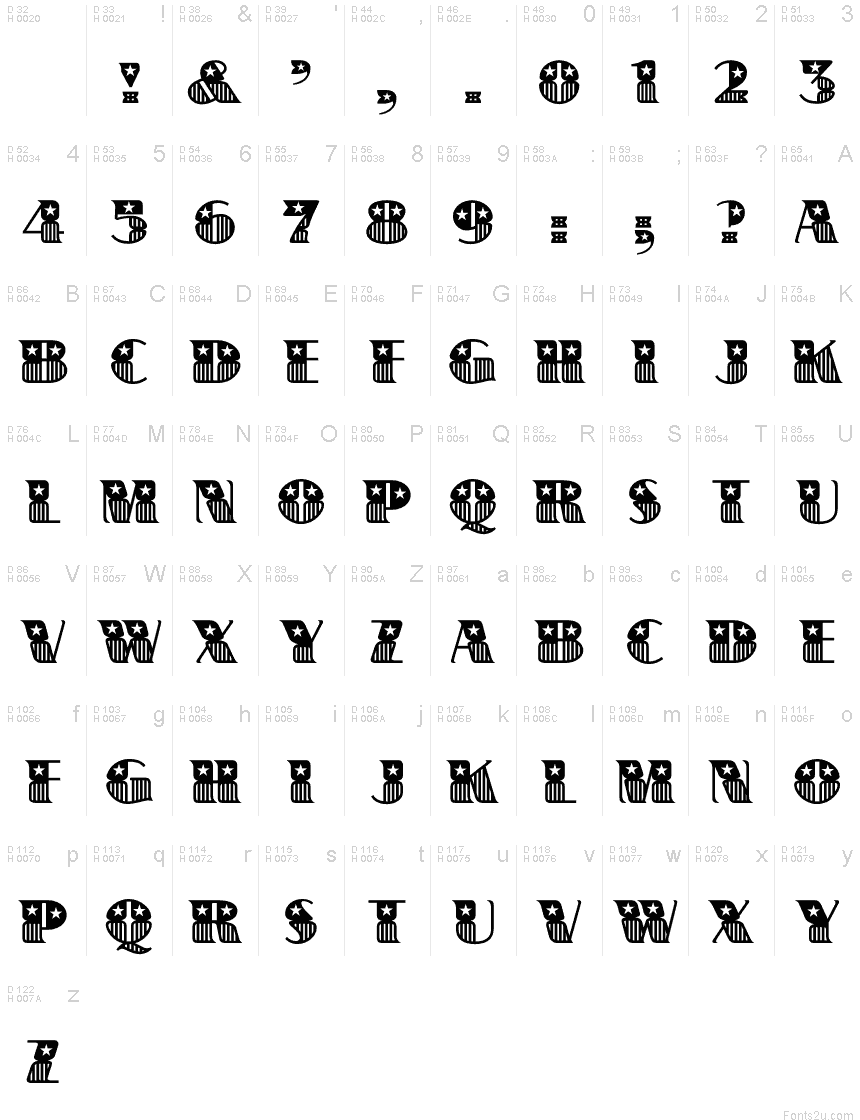
Banner Star is a free decorative display font built around a bold stars-and-stripes motif. Each letter combines broad upper shapes and star cutouts with narrow vertical stripes below, turning the alphabet into a row of compact patriotic emblems.
American holiday audiences will recognize it immediately on parade posters and event merchandise. It also fits campaign graphics and themed packaging, since the repeated flag details link civic messaging with festive, illustrated lettering.
BannerStar